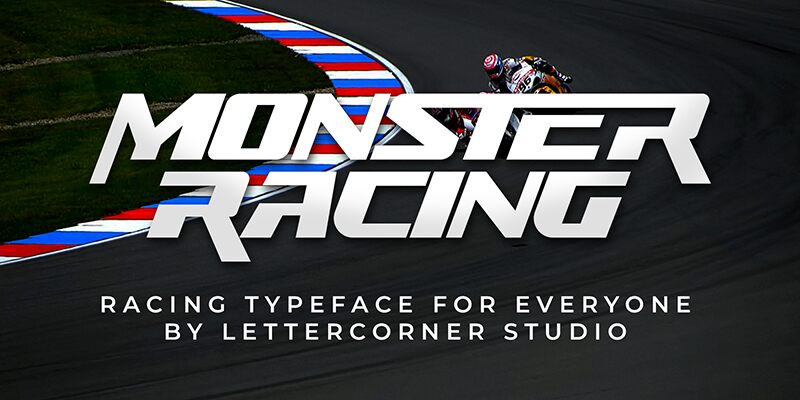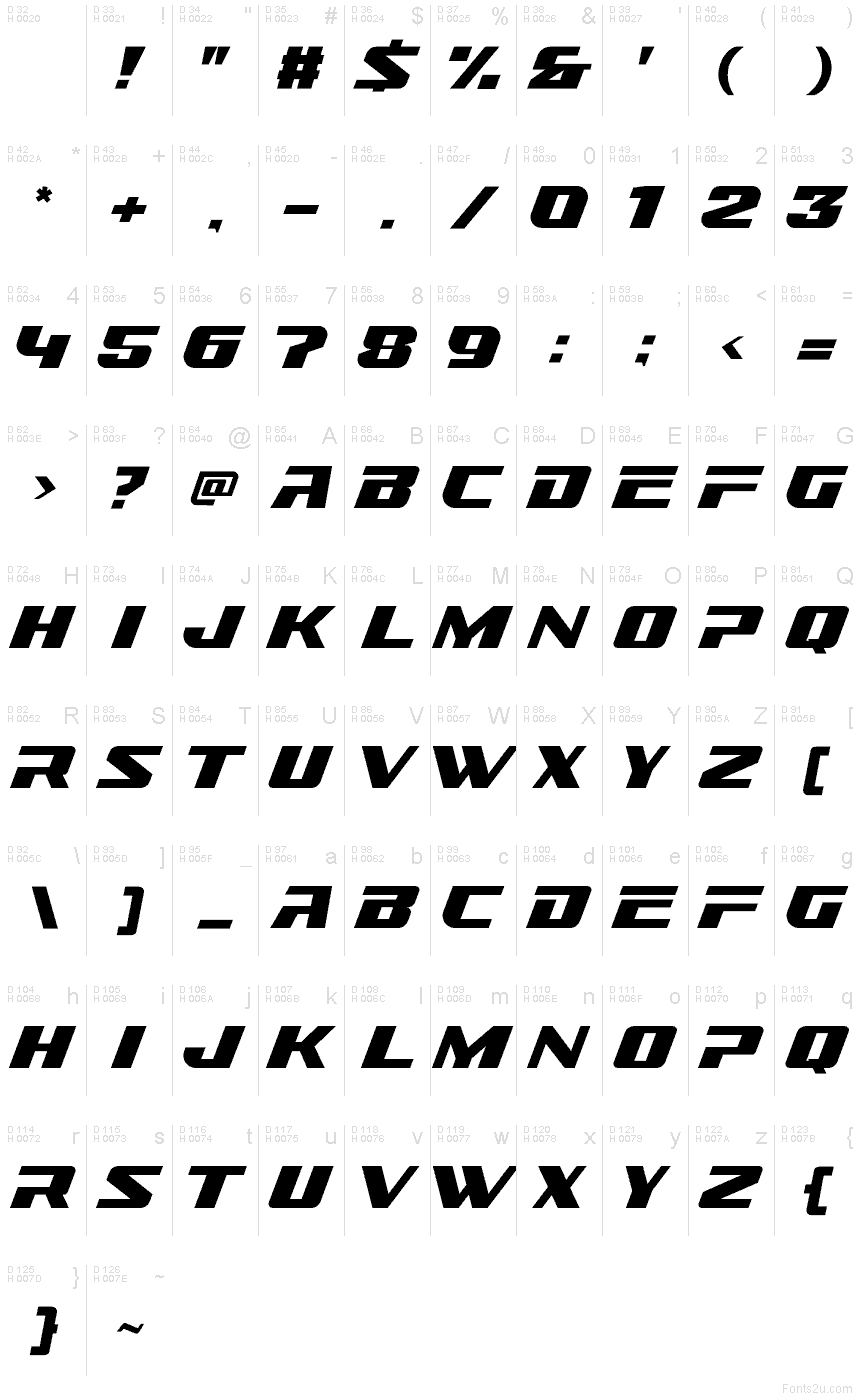
Monster Racing
Monster Racing font by Mocha Frappuccino is a retro-inspired futuristic display font. The aggressive angular shapes convey energy and sleekness that increase the excitement level in audiences. All characters of this bold expanded typeface are unique; it’d be hard to mistake them.
Monster Racing, a free font you can pick up now, is built for logotype usage and packaging design. It also works for flyers, headers, printed ads, posters or titles within creative publications. t-shirts or other apparel items can make use of the typeface which can turn out to be a great fit for online design projects like website designs!